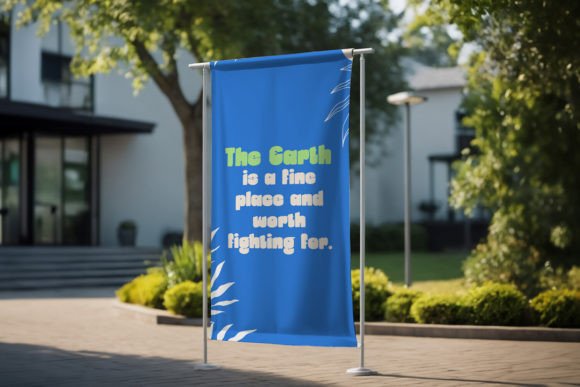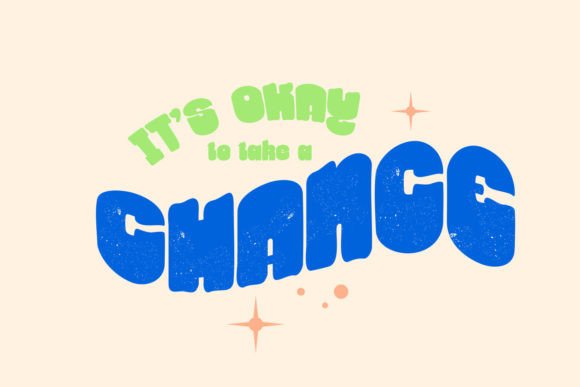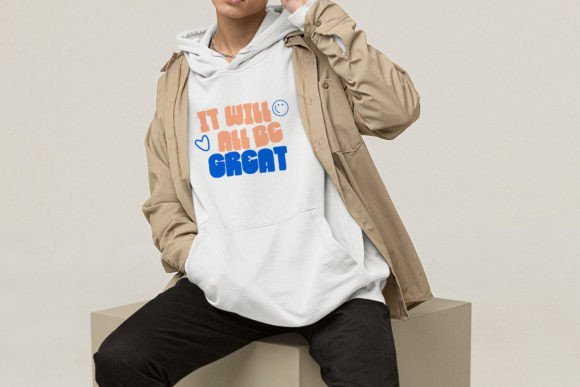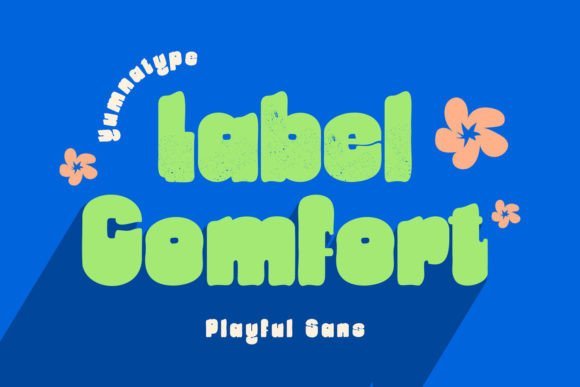
Introduction to Label Comfort Font
Label Comfort is a bold and versatile display font that combines the comfort of rounded shapes with the rugged charm of a grunge version.
Each letter in Label Comfort is meticulously designed with rounded shapes that add a soft quality to your text The very thick weight of the font gives it a strong and commanding presence, while the low contrast ensures clarity and legibility in any size.
Key Features of Label Comfort Font